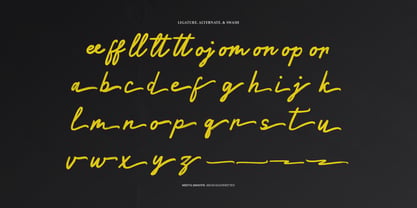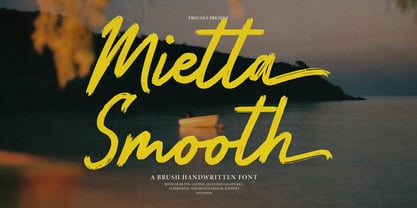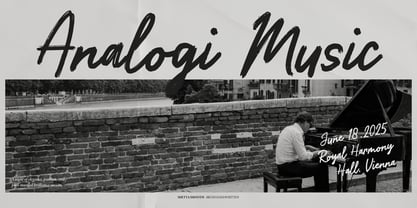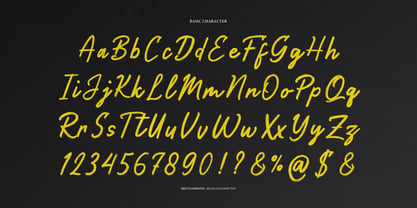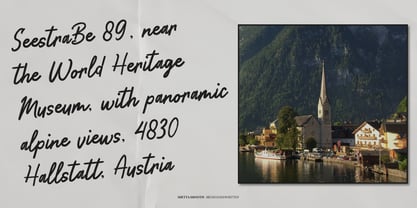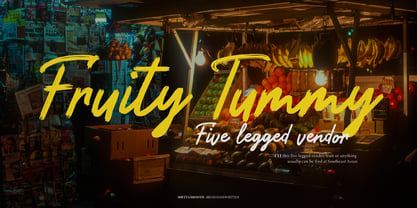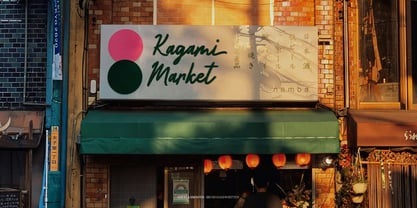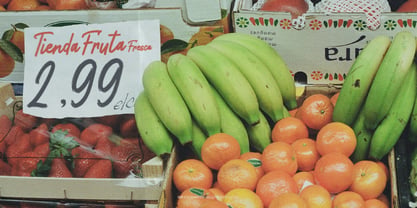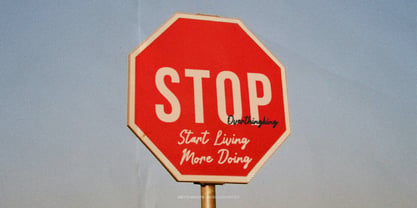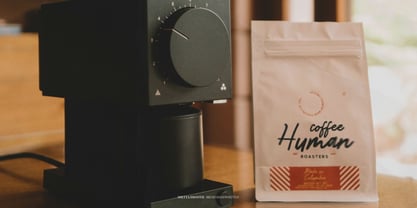
Mietta Smooth
by Tini Fitriani
The Mietta Smooth Font Family was designed by and published by Tini Fitriani. Mietta Smooth contains 2 styles and family package options. More about this family
Mietta Smooth | Brush Handwritten Font, from Gracetypestudio, suitable for any projects such as: logos, branding projects, homeware designs, product packaging, mugs, quotes, posters, shopping bags, t-shirts, book covers, name card, invitation cards, greeting cards, label, photography, watermark, special events, and all your other lovely projects that need a Brush Handwritten taste.
• Regular and Italic
• Alternate and Ligature
• Fonts include multilingual support